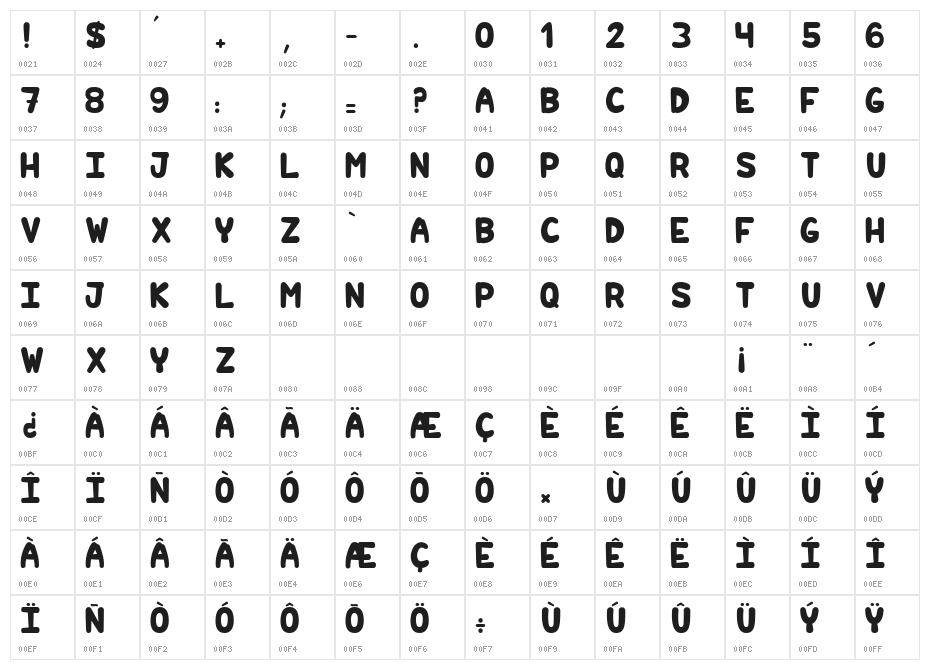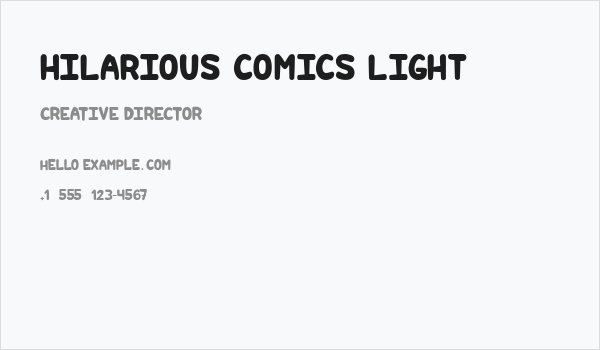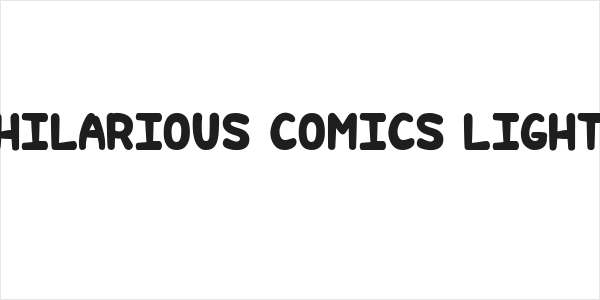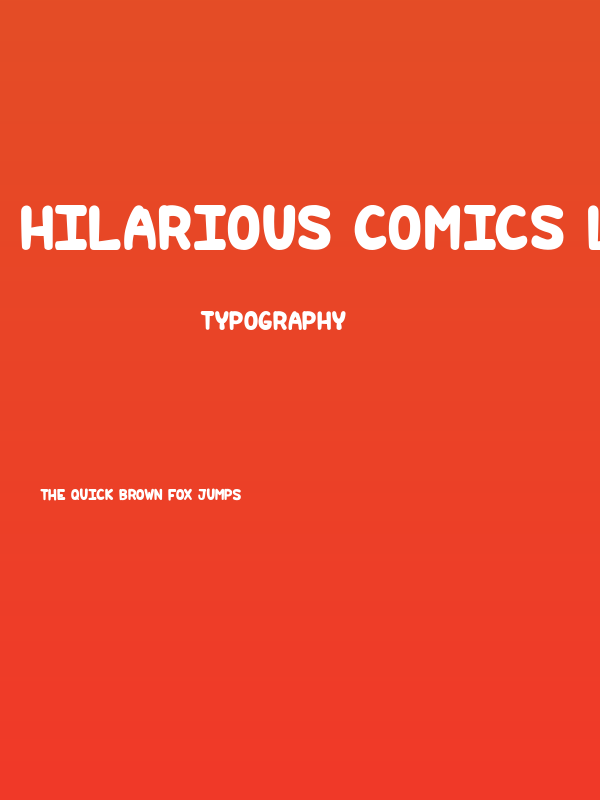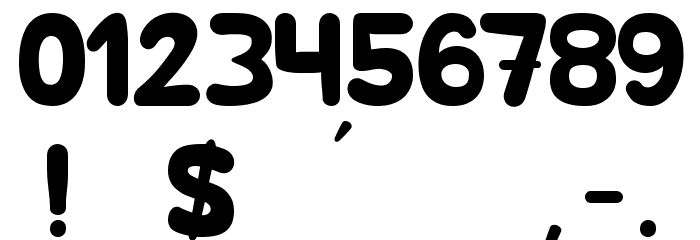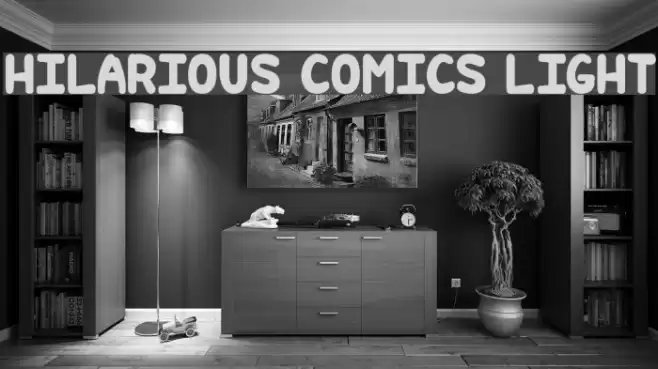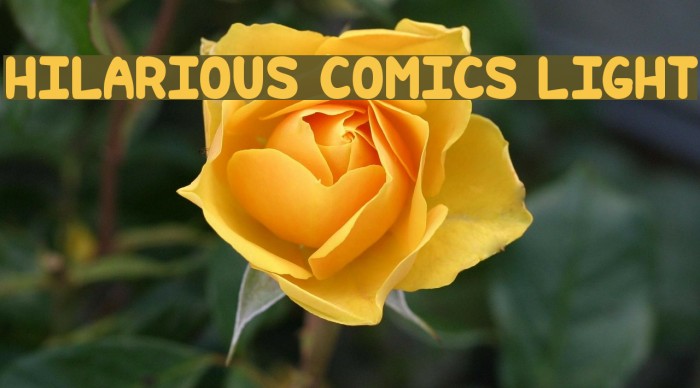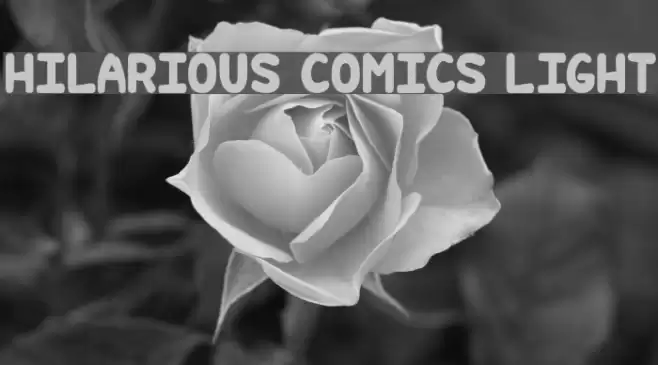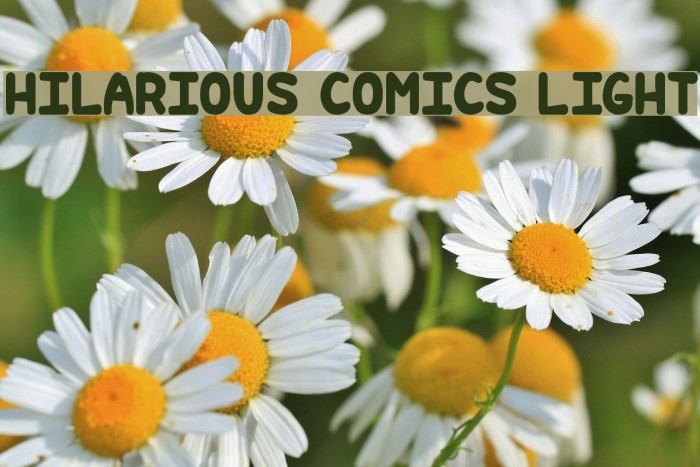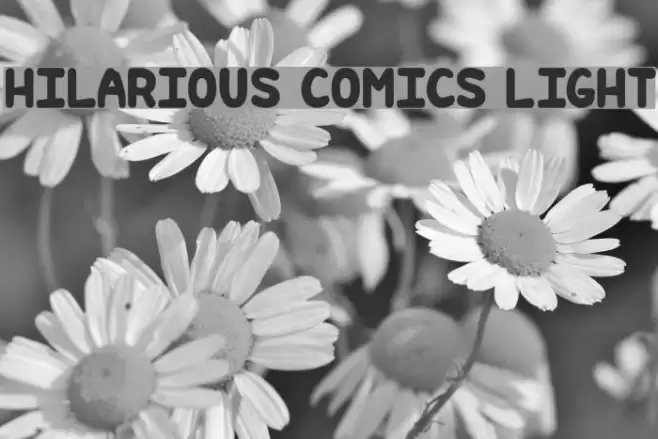
Hilarious Comics light Font
Hilarious Comics light Description
This playful and bold font features rounded, thick strokes that give it a friendly and approachable appearance. The characters are slightly irregular, adding a whimsical and casual feel. The uppercase and lowercase letters maintain a consistent style, with the lowercase being slightly smaller but equally bold. Numbers and special characters are designed to match the playful aesthetic, making them ideal for informal and fun contexts. The font's overall design is reminiscent of comic book lettering, making it suitable for projects that require a lighthearted and energetic vibe.
| Overall Style | Playful, Comic |
| Use Case | Headlines, Posters, Branding |
| Proposed Projects | Ideal for comic books, children's books, playful branding, and casual posters. |